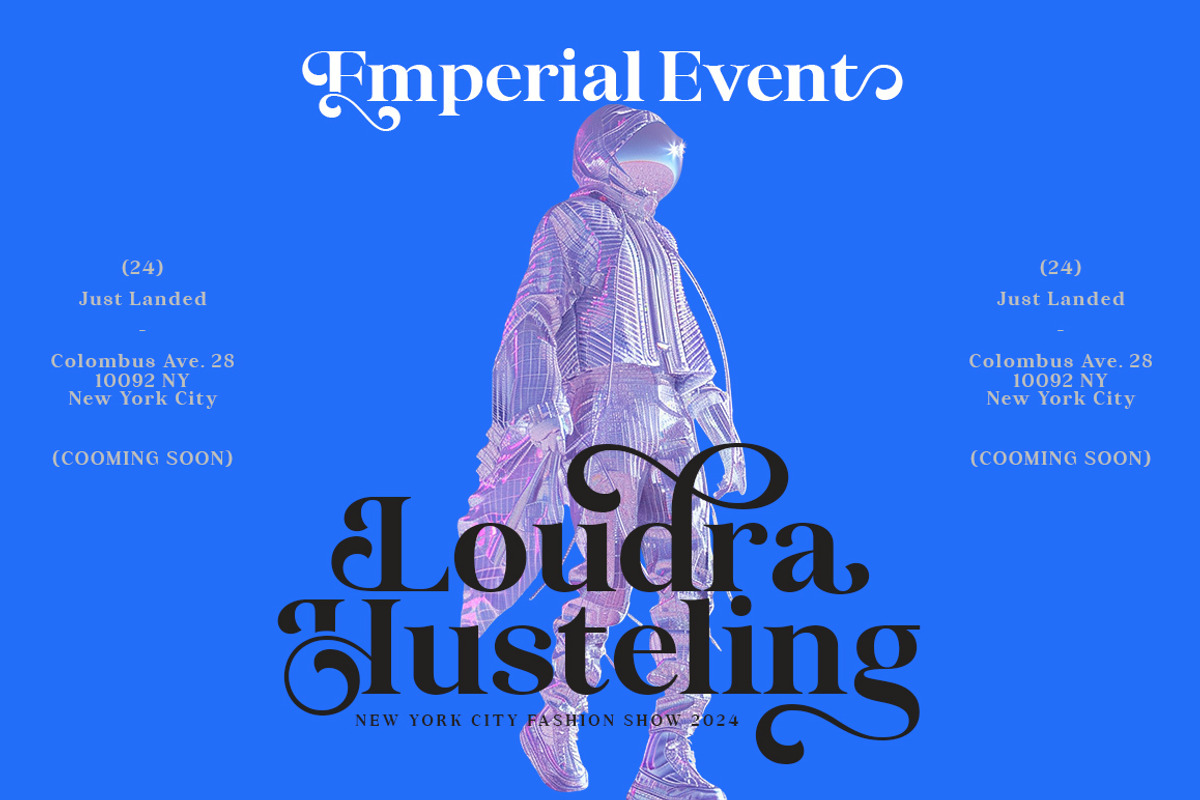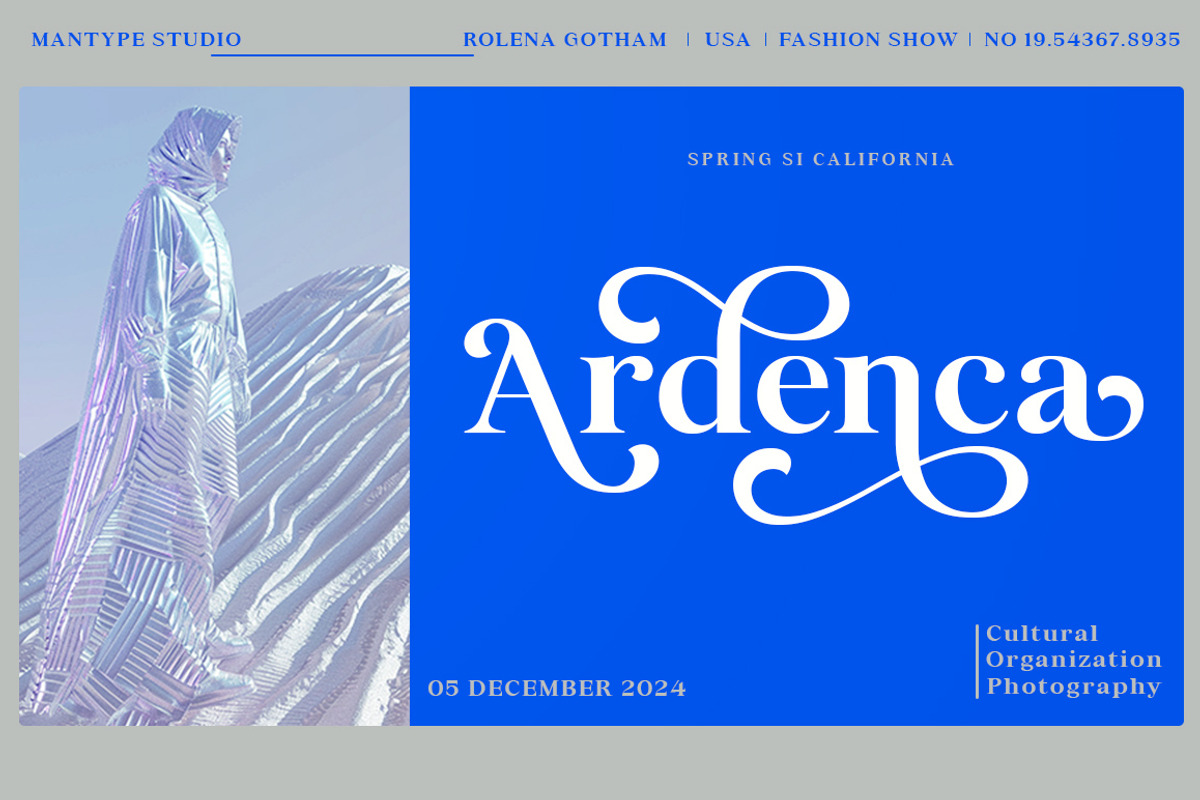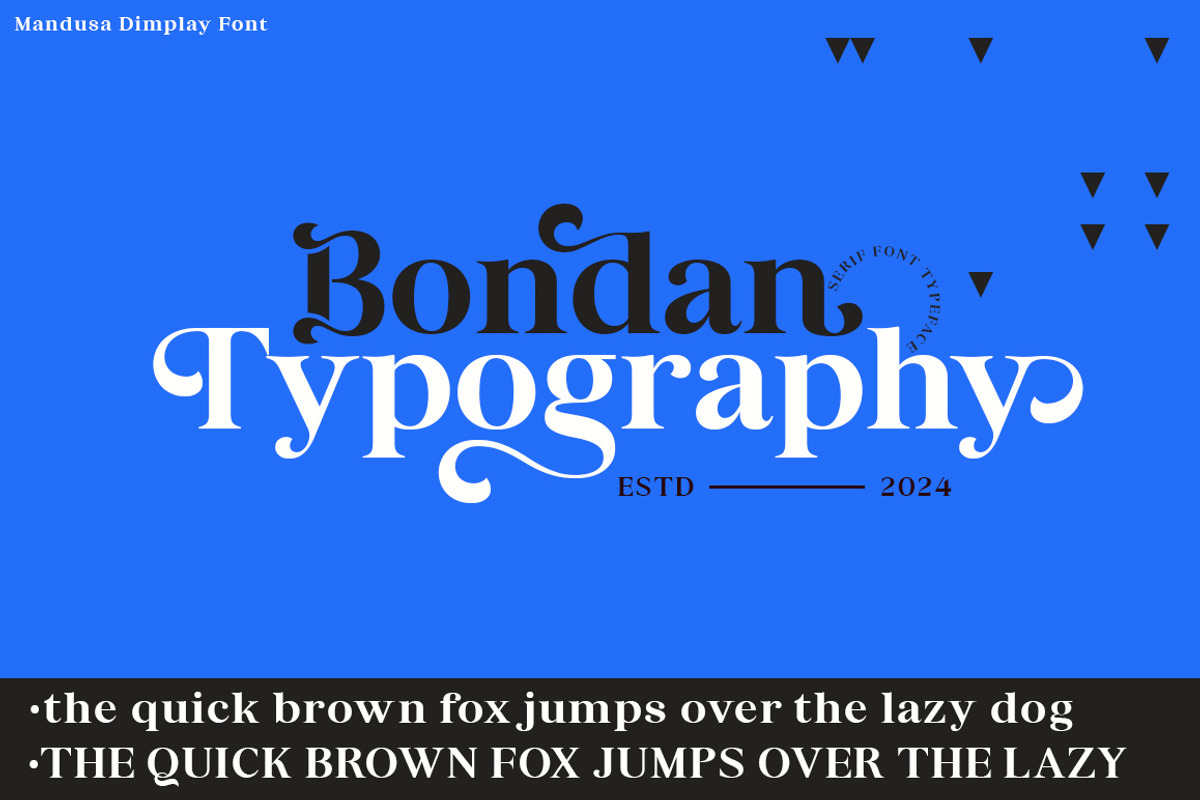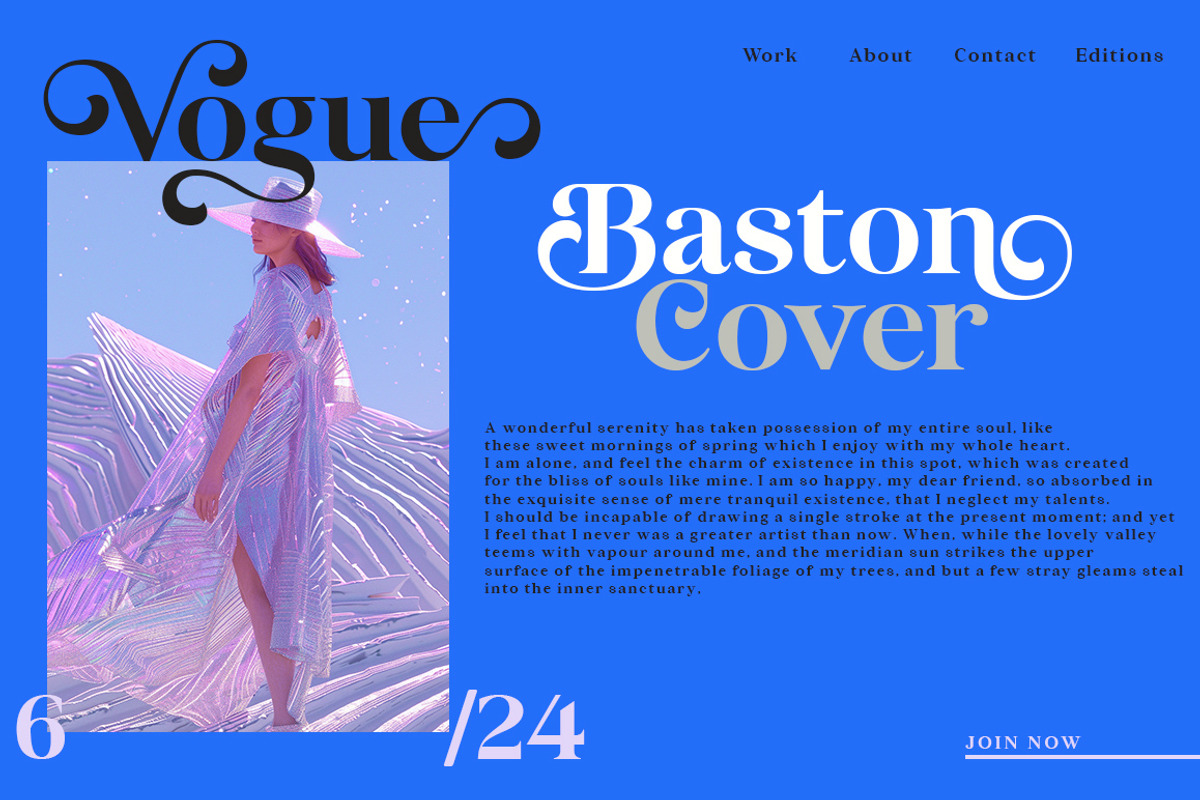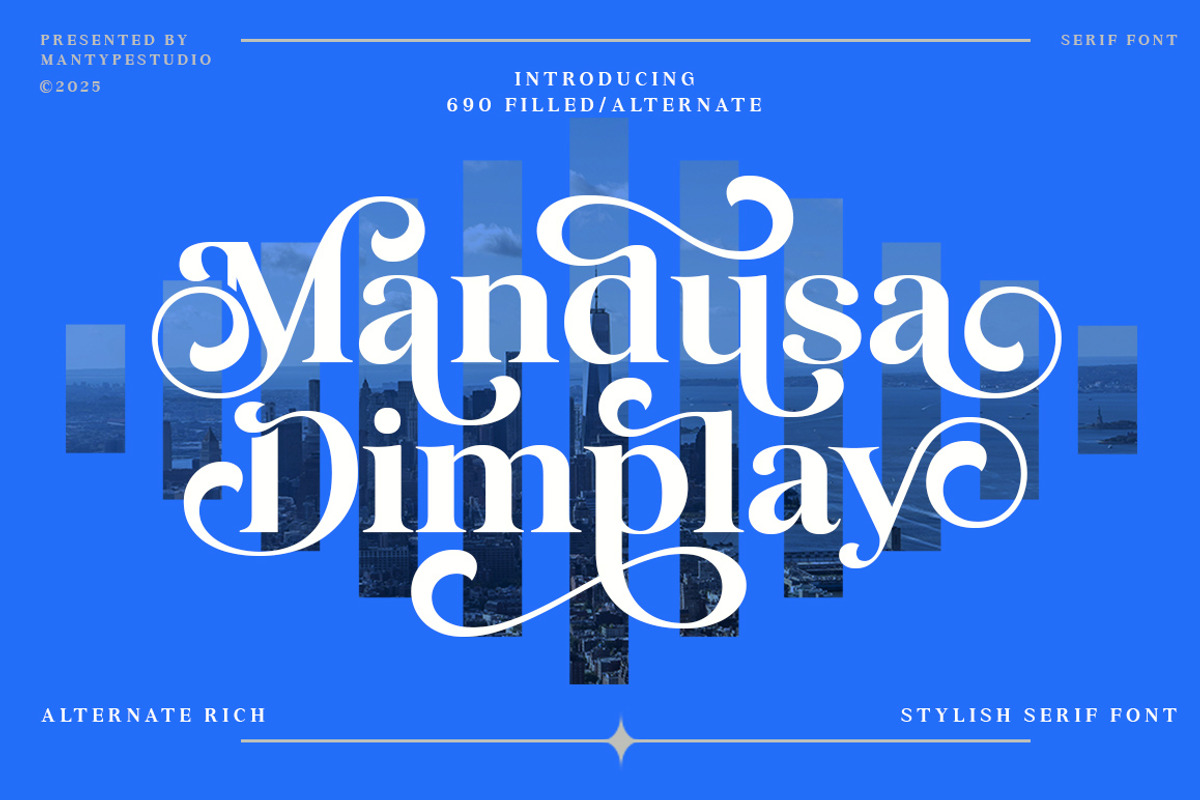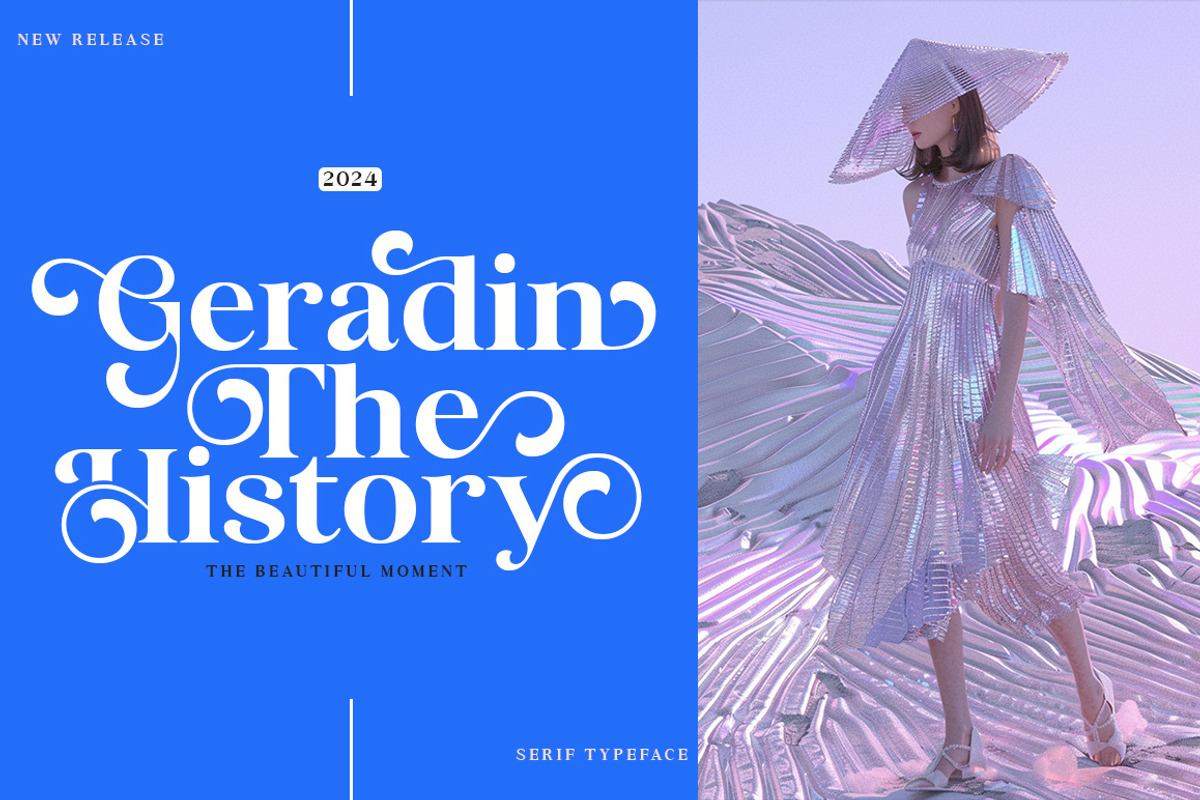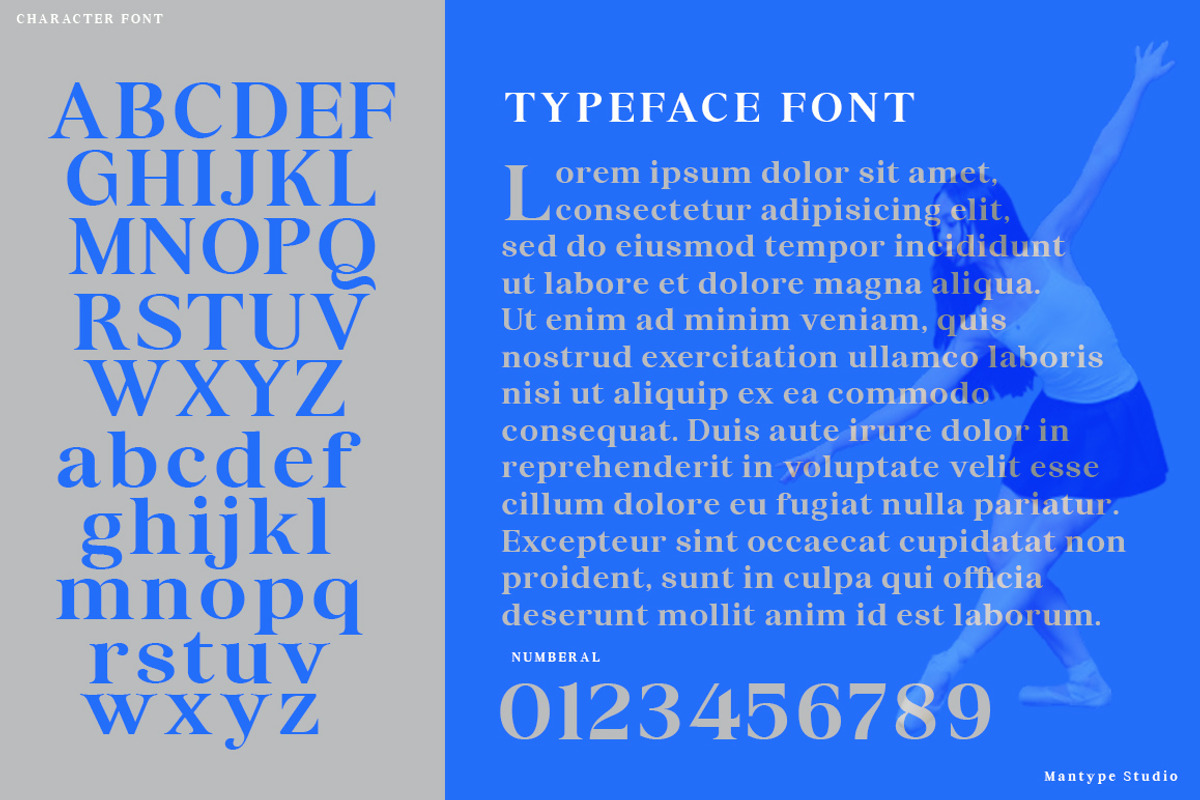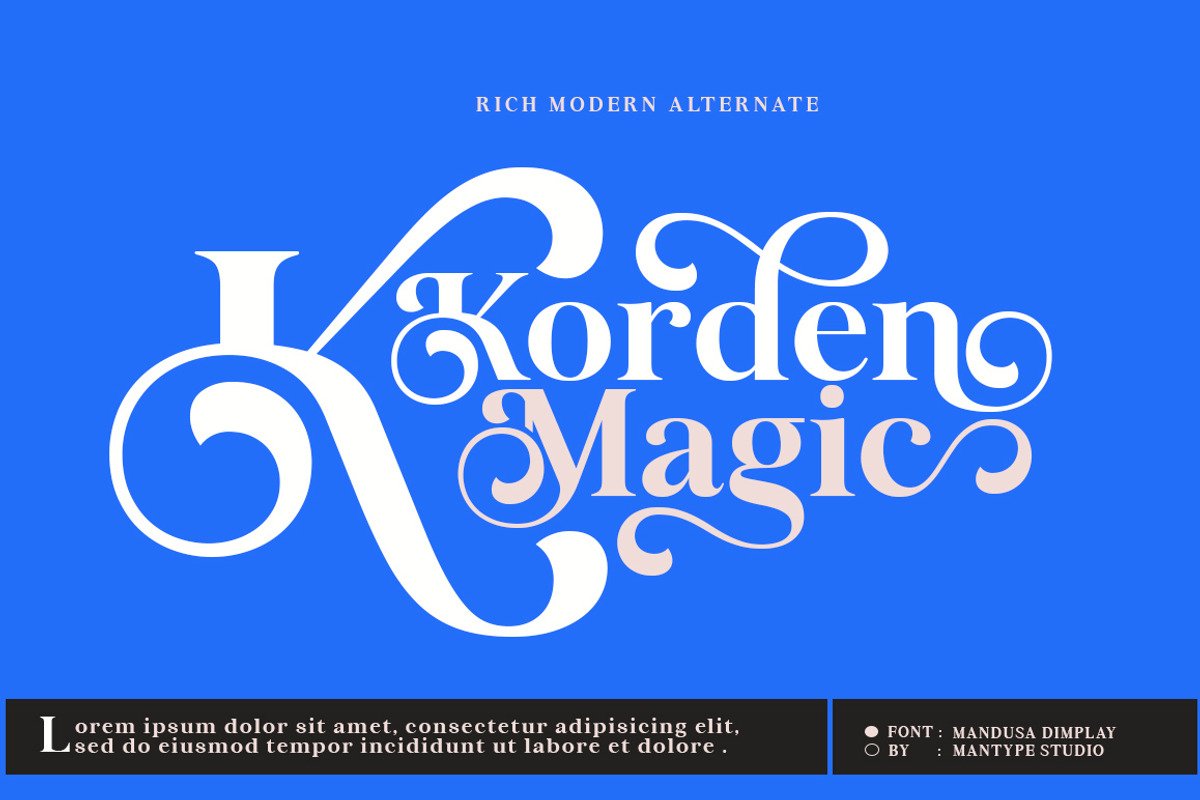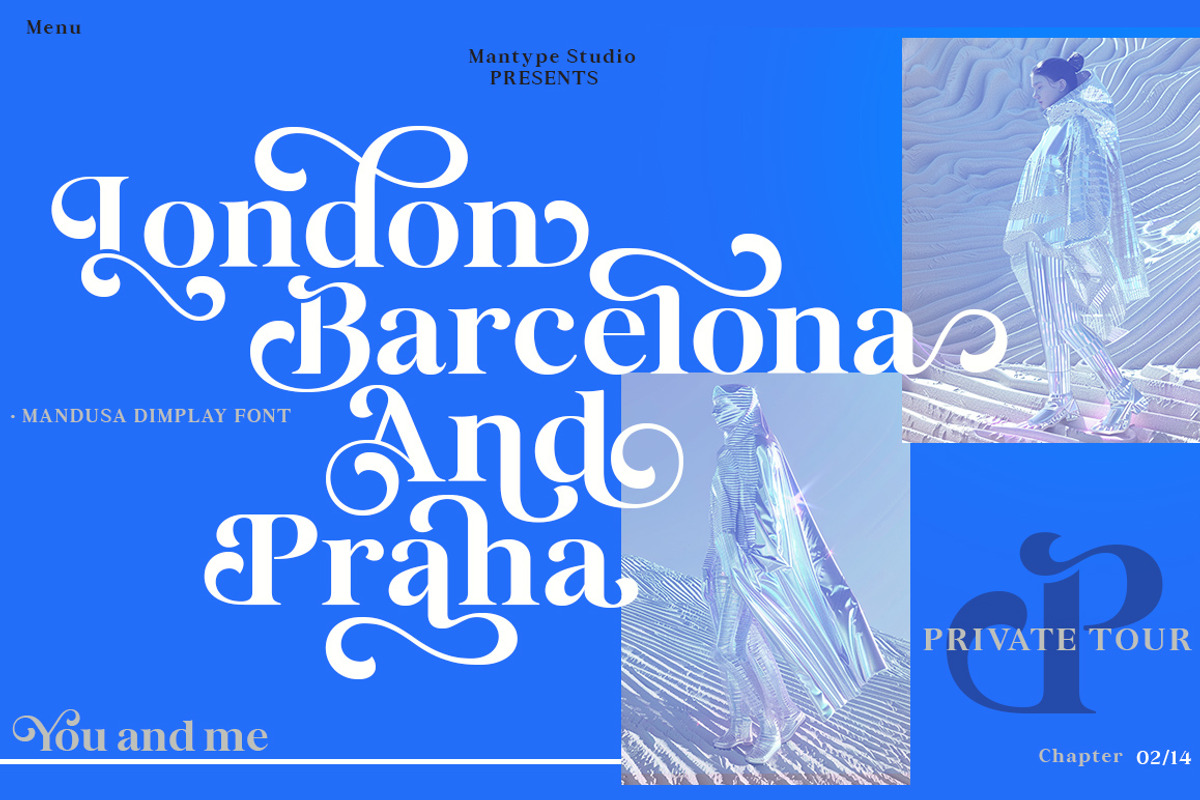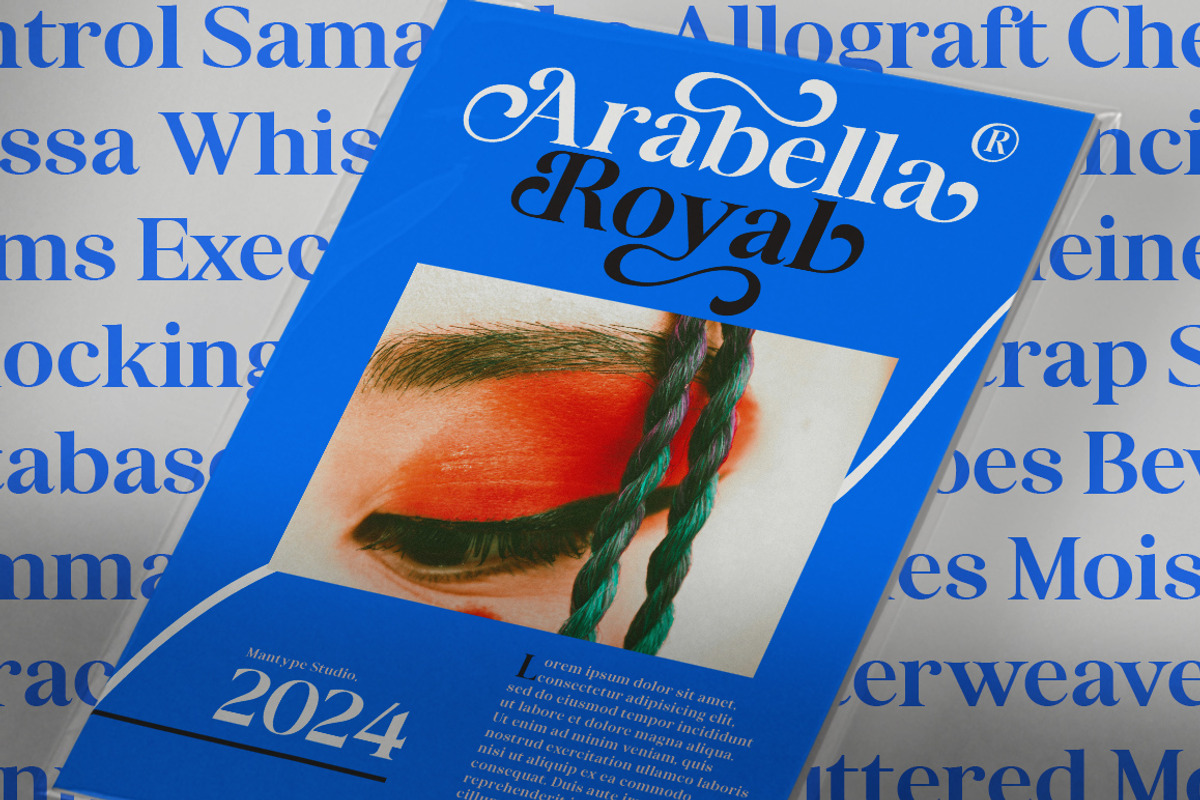
Mandusa dimplay
Mandusa dimplay is a modern serif typeface that offers a fashionable touch. Not only does it look sophisticated but also charming. What makes it attractive is its smooth curves, presenting an elegant style. Its classy volume is also one of its characteristics and attractions. With the influence of calligraphy, this font gives a contemporary impression. So, it is suitable for various designs such as beauty designs, elegant crafts, layout designs, advertising branding, design templates, etc.